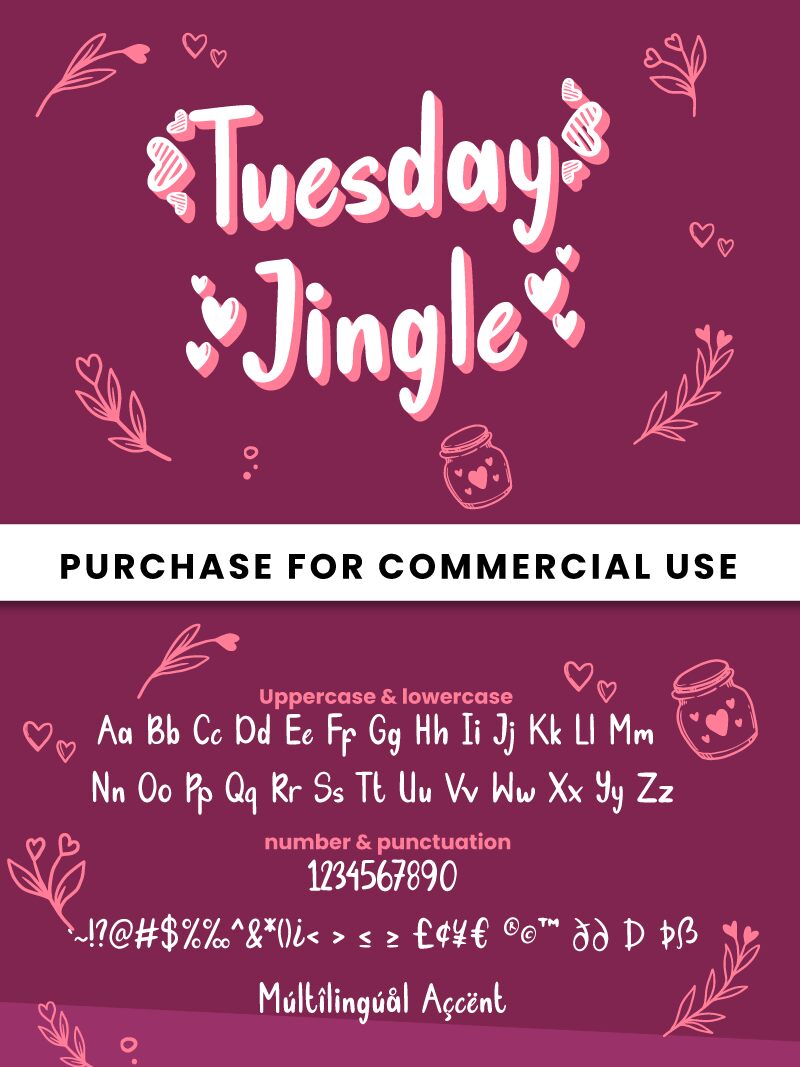
Tuesday Jingle font is a cute handwritten typeface designed by Fadli Ramadhan Iskandar of Attype Studio.
Features: MULTILINGUAL SUPPORT
Tuesday Jingle